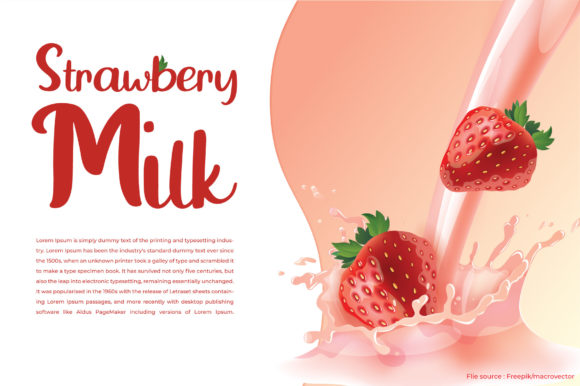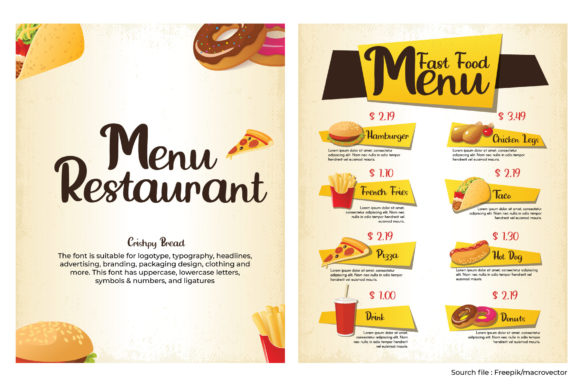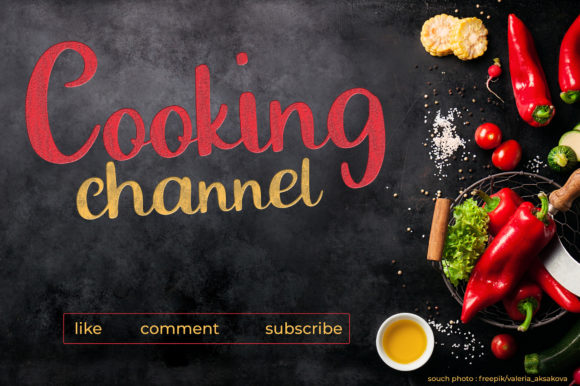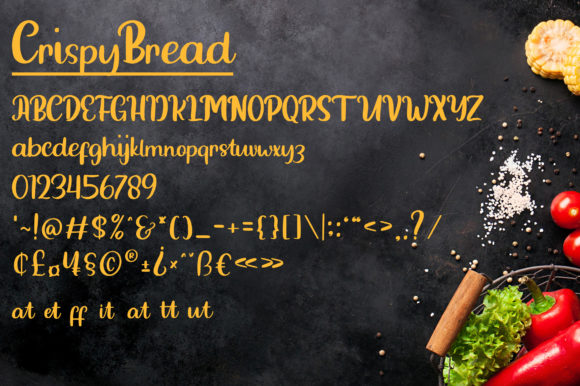
Crispy Bread Font: The Perfect Addition to Your Design Collection
Are you tired of using the same old fonts in your designs? Look no further than the Crispy Bread font, a bold lettered and flowing script font that’s sure to elevate your work. With its ravishing style, this font is perfect for creating stunning wedding invitations, beautiful stationary art, eye-catching social media posts, and so much more.
What Makes Crispy Bread Font So Special?
The Crispy Bread font is a unique and elegant script font that’s designed to make your designs stand out. Its bold, flowing letters are perfect for creating beautiful and eye-catching text that’s sure to grab attention. Whether you’re a designer, crafty DIY enthusiast, or social media influencer, this font is a must-have in your collection.
Uses for Crispy Bread Font
The possibilities are endless when it comes to using the Crispy Bread font. Here are just a few ideas to get you started:
- Wedding Invitations: Create stunning wedding invitations that set the tone for the big day. The Crispy Bread font is perfect for creating beautiful, elegant invitations that will leave a lasting impression on your guests.
- Stationary Art: Add a touch of elegance to your stationary art with the Crispy Bread font. From greeting cards to letterhead, this font is sure to make your designs stand out.
- Social Media Posts: Create eye-catching social media posts that grab attention and drive engagement. The Crispy Bread font is perfect for creating stunning graphics and quotes that will leave your followers speechless.
- Branding: Use the Crispy Bread font to create a unique and recognizable brand identity. From logos to packaging, this font is sure to make your brand stand out.
Why Designers and Crafters Love Crispy Bread Font
Designers and crafters love the Crispy Bread font for its unique and elegant style. Here are just a few reasons why:
- Unique Style: The Crispy Bread font has a unique and elegant style that’s sure to make your designs stand out. Its bold, flowing letters are perfect for creating beautiful and eye-catching text.
- Versatile: The Crispy Bread font is versatile and can be used for a variety of design projects, from wedding invitations to branding.
Tips for Using Crispy Bread Font
Here are a few tips for using the Crispy Bread font in your designs:
- Pair with Other Fonts: Pair the Crispy Bread font with other fonts to create a unique and interesting contrast. Try pairing it with a bold sans-serif font for a stunning combination.
- Experiment with Colors: Experiment with different colors to find the perfect combination for your design. The Crispy Bread font looks stunning in bold, bright colors.
- Use for Headlines: Use the Crispy Bread font for headlines and titles to create a bold and eye-catching statement.
The Crispy Bread font is a must-have for designers and crafters looking to elevate their work. With its unique and elegant style, this font is perfect for creating stunning wedding invitations, beautiful stationary art, eye-catching social media posts, and much more. Whether you’re a seasoned designer or just starting out, the Crispy Bread font is sure to become a favorite in your collection.